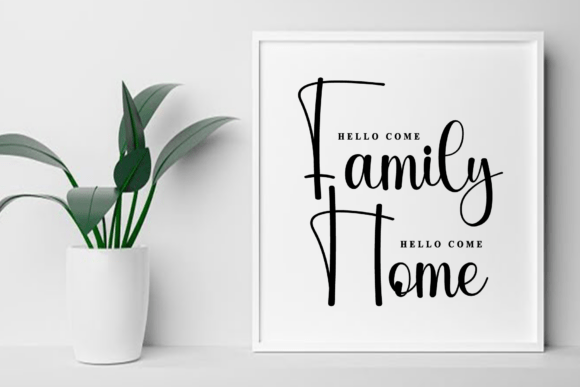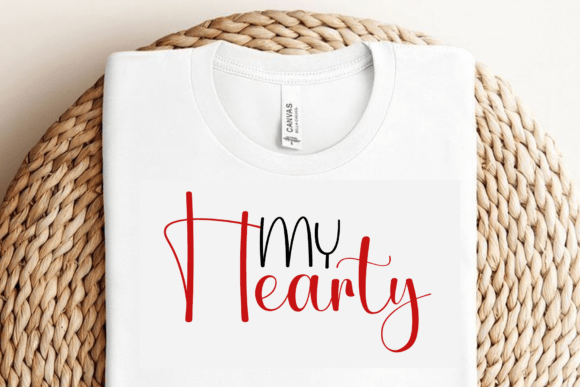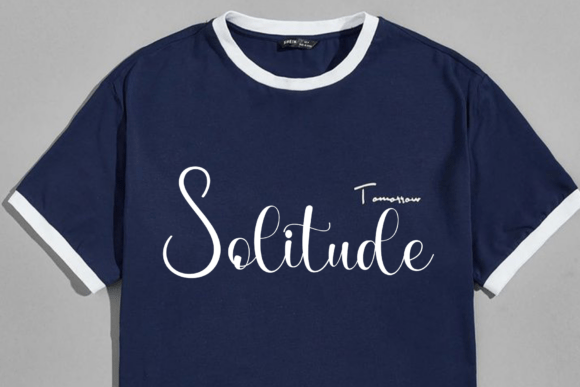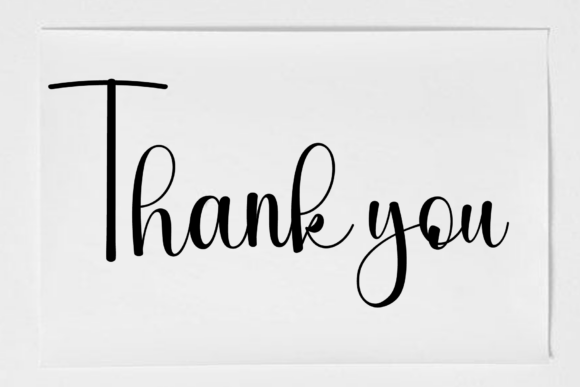
Elevate Your Design with Digital: A Sophisticated Script Font
In the world of typography, a font can make or break a design. For those seeking a touch of elegance and sophistication, Digital is a premier choice. This stunning script font seamlessly blends a calligraphic style with a warm, organic aesthetic, making it perfect for artisanal food branding, boutique product packaging, upscale lifestyle marketing, and creative editorial titles.
The Distinctive Charm of Digital
What sets Digital apart is its unique use of sweeping, looping ascenders. These fluid strokes create a sense of customized, artisanal artistry, evoking the feeling of handcrafted luxury. The font’s rhythmic flow and harmonious balance of curves and lines make it a joy to behold. Whether you’re designing a label for a boutique product or a title for a high-end editorial piece, Digital adds a touch of refinement and poise.
Crafting a Brand Identity with Digital
For businesses in the artisanal food industry, Digital offers a wealth of creative possibilities. Imagine using this beautiful font to brand your small-batch bakery, specialty coffee roastery, or artisanal chocolate shop. The font’s warm, organic feel perfectly captures the essence of handcrafted products, while its sophisticated style ensures your brand stands out in a crowded market.
Similarly, boutique product packaging can be elevated with Digital. From luxury candles and soaps to high-end jewelry and fashion accessories, this font adds a touch of elegance and refinement. Its unique blend of calligraphic flair and organic warmth creates a distinctive visual identity that resonates with discerning consumers.
Upscale Lifestyle Marketing and Editorial Titles
In the realm of upscale lifestyle marketing, Digital shines as a versatile and sophisticated tool. Use it to create eye-catching headlines, titles, and taglines for luxury real estate, high-end travel, or fine dining promotions. The font’s sweeping ascenders and rhythmic flow evoke a sense of exclusivity and refinement, perfect for targeting high-end audiences.
For creative editorial titles, Digital offers a wealth of possibilities. From fashion and lifestyle magazines to art and design publications, this font adds a touch of elegance and sophistication. Its unique blend of calligraphic style and organic warmth creates a distinctive visual identity that sets your publication apart.
Why Choose Digital?
So why choose Digital over other script fonts? Here are just a few compelling reasons:
- Unique blend of calligraphic style and organic warmth: Digital’s distinctive character sets it apart from other fonts, making it perfect for brands seeking a touch of elegance and sophistication.
- Sweeping, looping ascenders: These fluid strokes create a sense of customized, artisanal artistry, evoking the feeling of handcrafted luxury.
- Versatility: Digital is suitable for a wide range of design applications, from artisanal food branding and boutique product packaging to upscale lifestyle marketing and creative editorial titles.
- High-end aesthetic: This font’s sophisticated style and rhythmic flow make it perfect for targeting high-end audiences and creating a luxurious brand identity.
Digital is a sophisticated and rhythmic script font that offers a unique blend of calligraphic style and organic warmth. Its sweeping, looping ascenders create a sense of customized, artisanal artistry, making it perfect for artisanal food branding, boutique product packaging, upscale lifestyle marketing, and creative editorial titles. With its versatility, high-end aesthetic, and distinctive character, Digital is an excellent choice for designers and crafters seeking to elevate their designs and create a lasting impression.